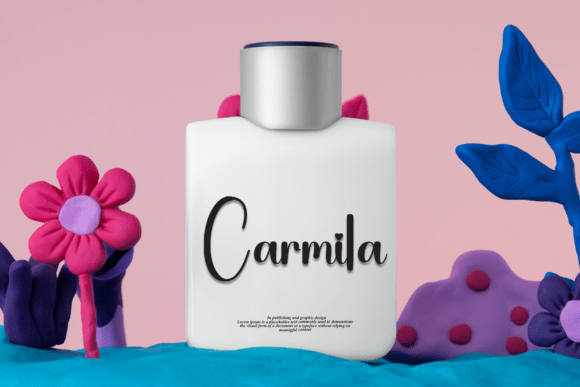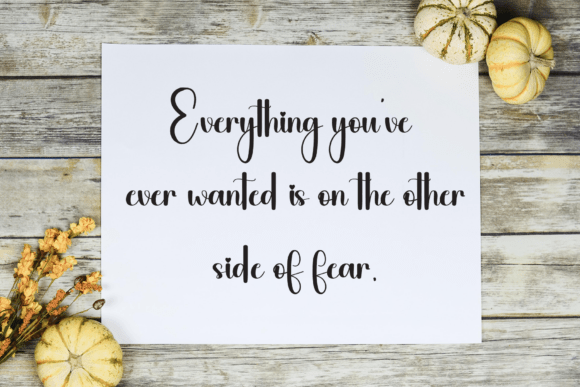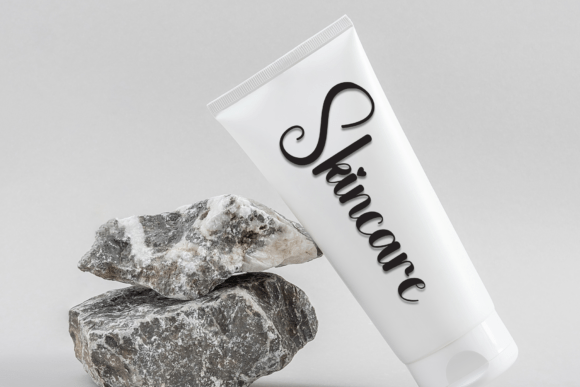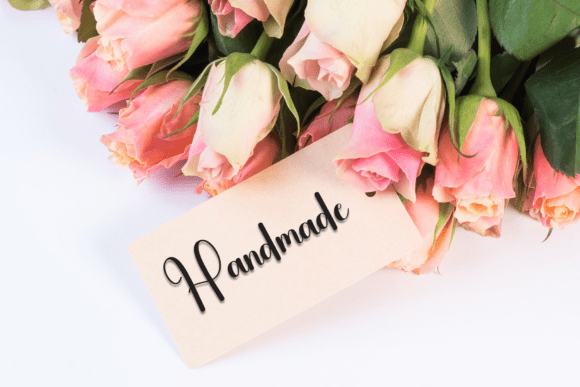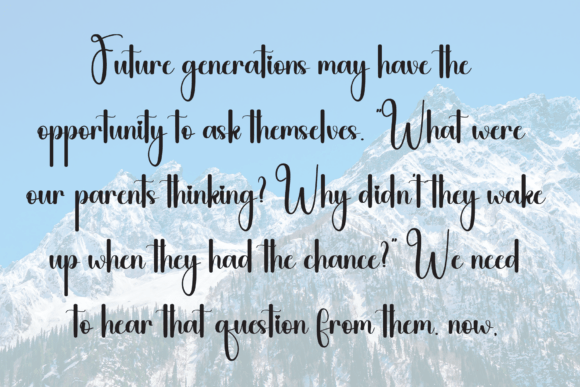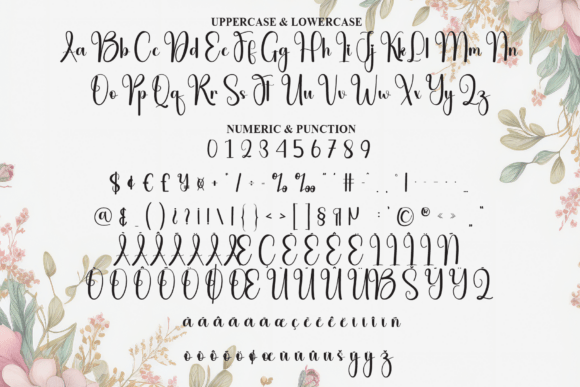
The Perfect Font for a Personal Touch
Have you ever stared at a blank canvas, waiting for inspiration to strike? That’s where the magic happens, and for many designers, the search for the perfect font can be a game-changer. It’s that moment when you stumble upon a typeface that speaks to your creative soul, and everything falls into place.
Enter Amastay Font, a stylish handwritten script font that embodies modern elegance and a playful touch. Its fluid strokes and charming curves bring a personal feel to any design, making it an ideal choice for logos, packaging, and invitations. With Amastay Font, designers can add warmth, sophistication, and creativity to every project, elevating their work to the next level.
Amastay Font Key Features
- Font Type: Script Font
- Unique Characteristics: Hand-drawn, elegant, and cursive script font with a modern twist
Amastay Font Review
Overall, I found the Amastay Font to be a stylish and elegant addition to any design project. ⨠The font’s unique blend of modern and vintage elements makes it a great choice for a wide range of applications, from fashion and lifestyle to technology and gaming.
One of the standout features of the Amastay Font is its versatility. ⨠It comes in a variety of styles, from casual to formal, making it easy to adapt to different design contexts. Additionally, the font’s high level of customization options allows designers to fine-tune the look and feel to suit their specific needs.
- ā ļø The Amastay Font may not be the best choice for projects that require a highly legible font, as some characters can be quite thin and delicate.
- ā ļø The font’s high level of customization can also be overwhelming for some designers, making it difficult to achieve a consistent look and feel.
Despite these limitations, I would recommend the Amastay Font to designers who are looking for a unique and stylish addition to their projects. With a little practice and patience, designers can unlock the full potential of this versatile font and create truly stunning designs.
Getting the Most Out of Amastay Font
To get the most out of the Amastay font, use it in combination with bold and italic styles to add emphasis and create visual interest.
Also, experiment with different font sizes and colors to create a unique and eye-catching design.
The Amastay font is ideal for use in:
Headings and titles
Logos and branding
Infographics and visualizations
Marketing materials and advertisements
Alternatives to Amastay Font for Designers
Great Vibes is a modern script font designed by Handmade Fonts. It is ideal for use in invitations, quotes, and any other design that requires a touch of elegance and sophistication. Great Vibes is more cursive than Amastay Font, with a smoother and more flowing feel.
Comparison: Great Vibes has a more refined and polished look compared to Amastay Font, making it suitable for high-end designs. Amastay Font, on the other hand, has a more playful and casual vibe.
Dancing Script is a elegant and stylish script font designed by Pablo Impallari and Rodrigo Fuenzalida. It is perfect for use in wedding invitations, logos, and any other design that requires a touch of sophistication and glamour. Dancing Script is more ornate than Amastay Font, with a more dramatic flair.
Comparison: Dancing Script has a more luxurious and high-end feel compared to Amastay Font, making it suitable for premium designs. Amastay Font, on the other hand, has a more relaxed and casual vibe.
Carolyna Pro is a modern script font designed by Nils Thomsen. It is ideal for use in branding, advertising, and any other design that requires a touch of sophistication and elegance. Carolyna Pro is more refined and polished than Amastay Font, with a more subtle flair.